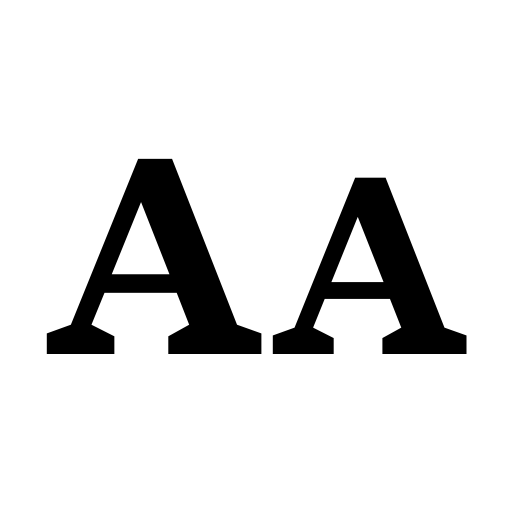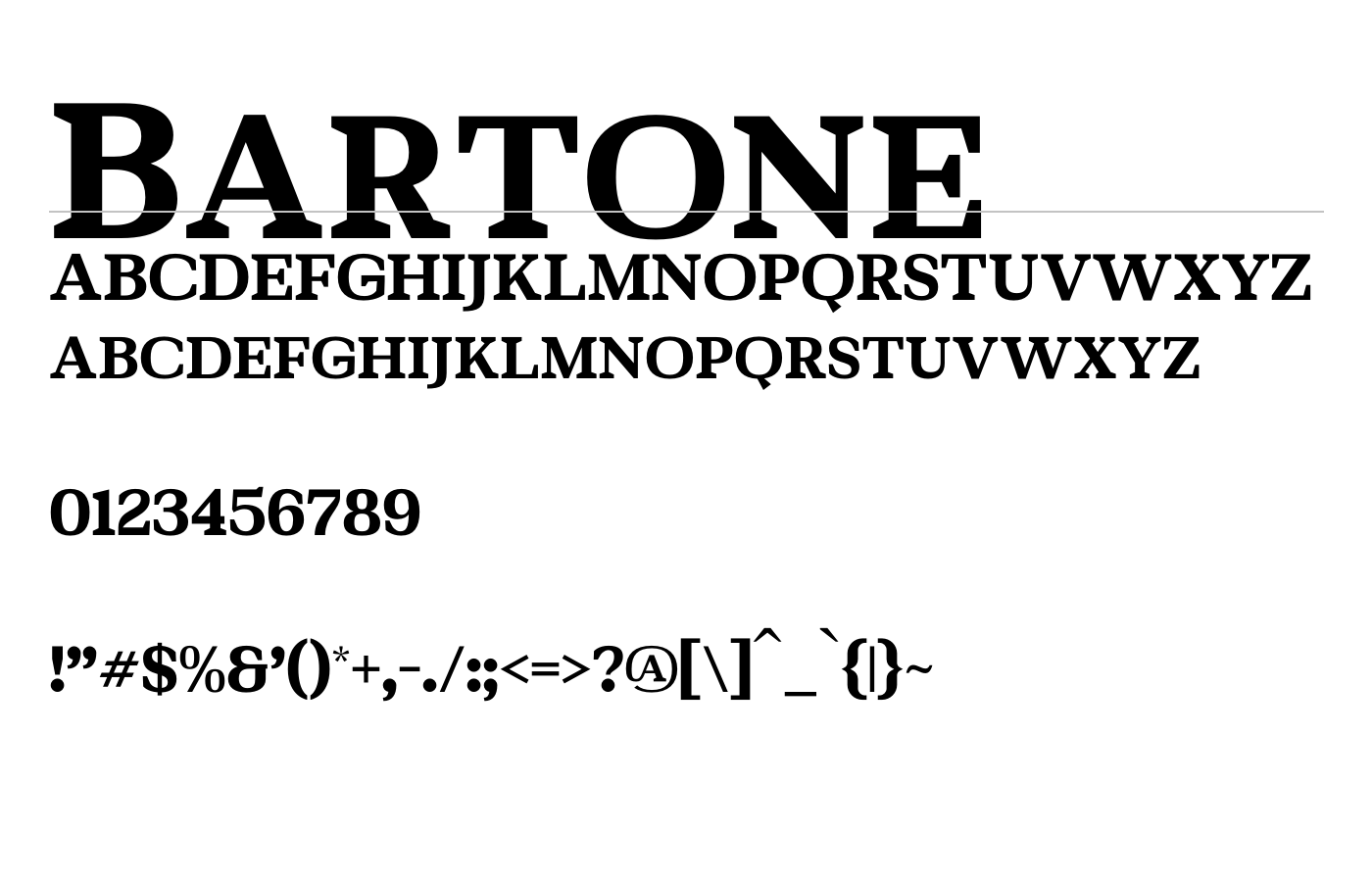
Bartone is a bold slab serif font with strong, blocky serifs and a high contrast between thick and thin strokes, giving it a confident, authoritative presence. Its crisp, structured letterforms suit headlines, logos, and editorial use where a commanding, classic yet modern look is needed. This font works particularly well in branding and print where impact and readability are essential.
Bartone Font
About Bartone Font